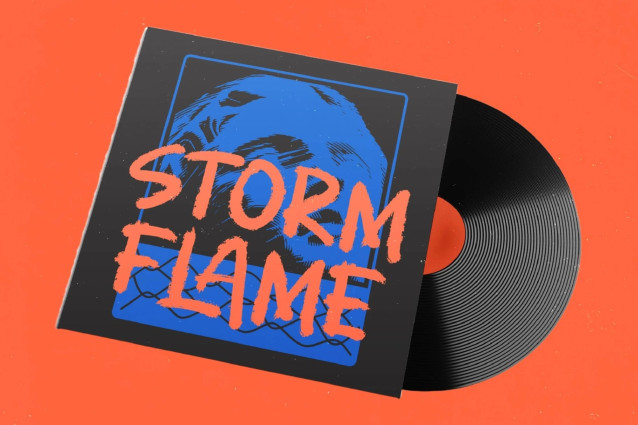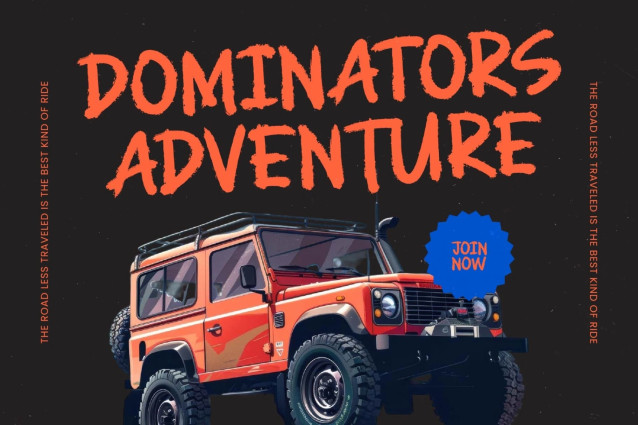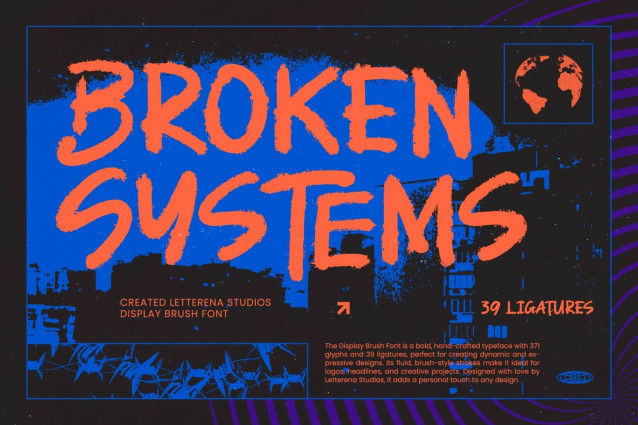
Broken System Script Font
Broken System Script Font a typeface designed to command immediate attention. This bold, hand-crafted typeface features expressive, fluid brush strokes that capture a sense of raw energy and urban grit. By merging a distressed texture with high-impact letterforms, Broken Systems – Display Brush Font offers a unique aesthetic that is both aggressive and artistic, making it an essential tool for any designer aiming to break the mold.
Transform your creative output with a font built for high-octane visual storytelling and modern branding. The Broken Systems – Display Brush Font is the perfect choice for streetwear labels, music festival posters, and edgy packaging that requires a distinct, rebellious personality. Whether you are crafting dynamic headlines or luxury urban branding, this font ensures your message resonates with maximum impact and a sophisticated, artisanal feel.
Achieve professional-grade results with a comprehensive set of 371 glyphs and 39 unique ligatures that provide endless customization. With its extensive multilingual support, Broken Systems – Display Brush Font adapts seamlessly across global markets, making it incredibly versatile for international projects. This technical depth allows the Broken Systems – Display Brush Font to maintain its hand-painted authenticity while providing the reliability needed for complex, large-scale commercial campaigns.
Invest in a bold visual statement that elevates your design toolkit to new professional heights. Developed by the renowned Letterena Studios, the Broken Systems – Display Brush Font adds a distinctive personal touch to every project it touches. Don’t settle for the ordinary when you can utilize the uncompromising style and artistic flair of the Broken Systems – Display Brush Font to redefine your brand’s identity today.